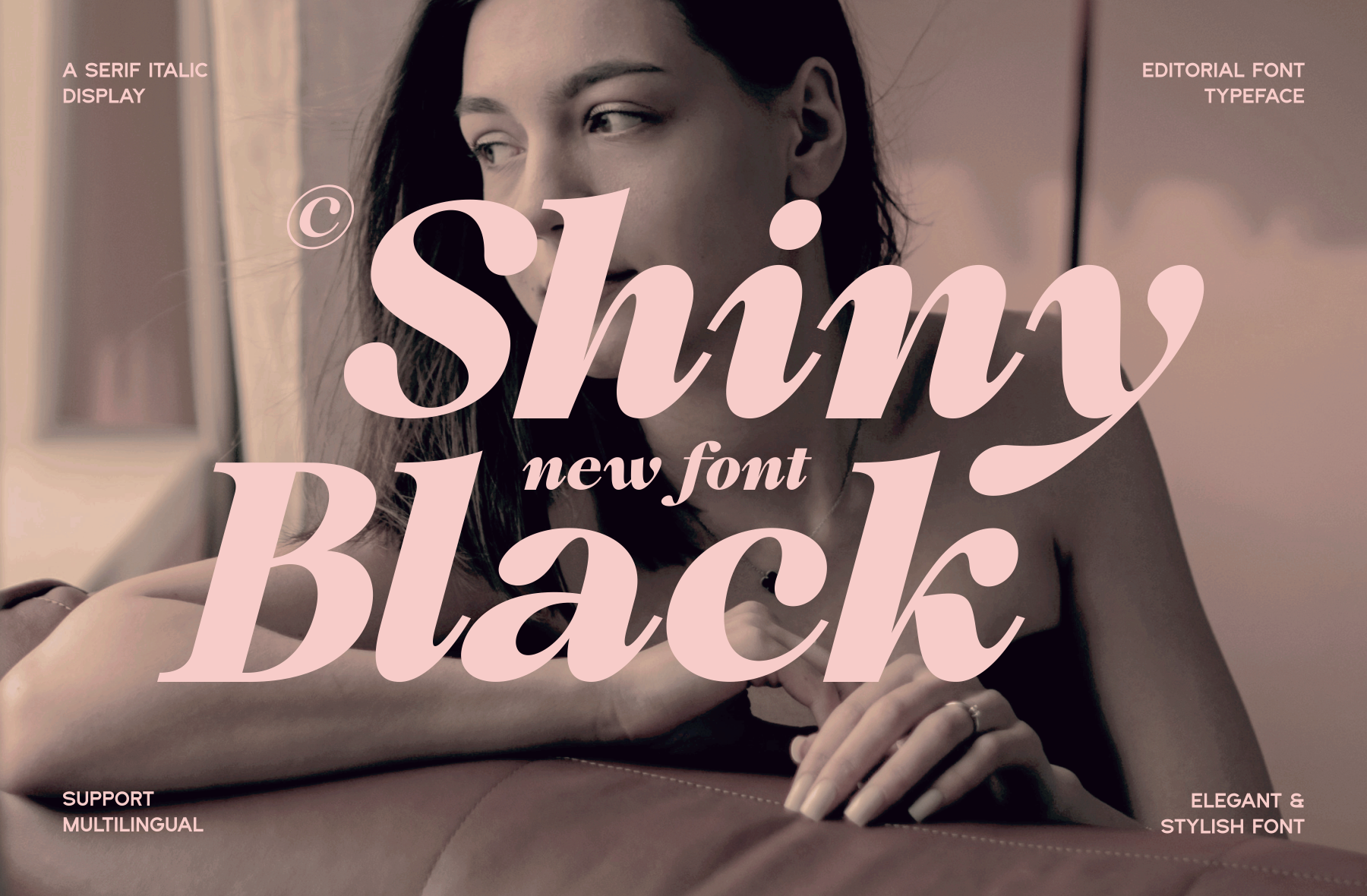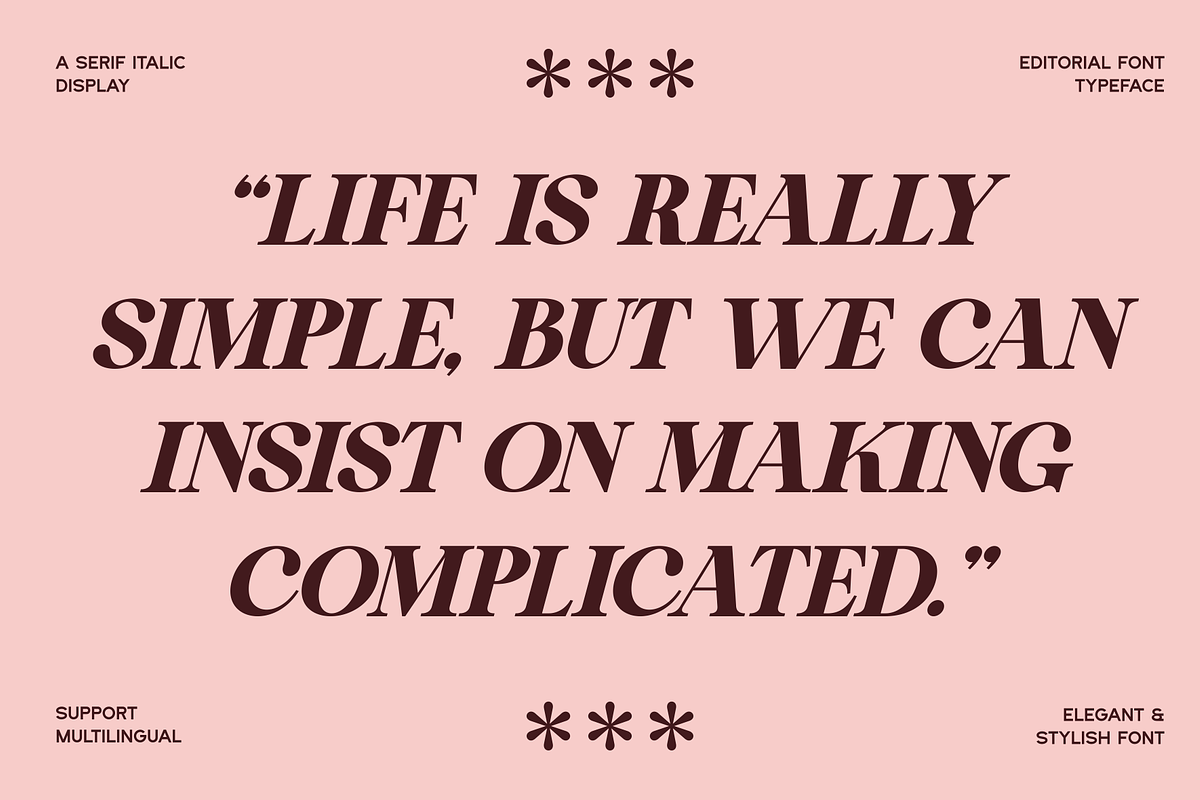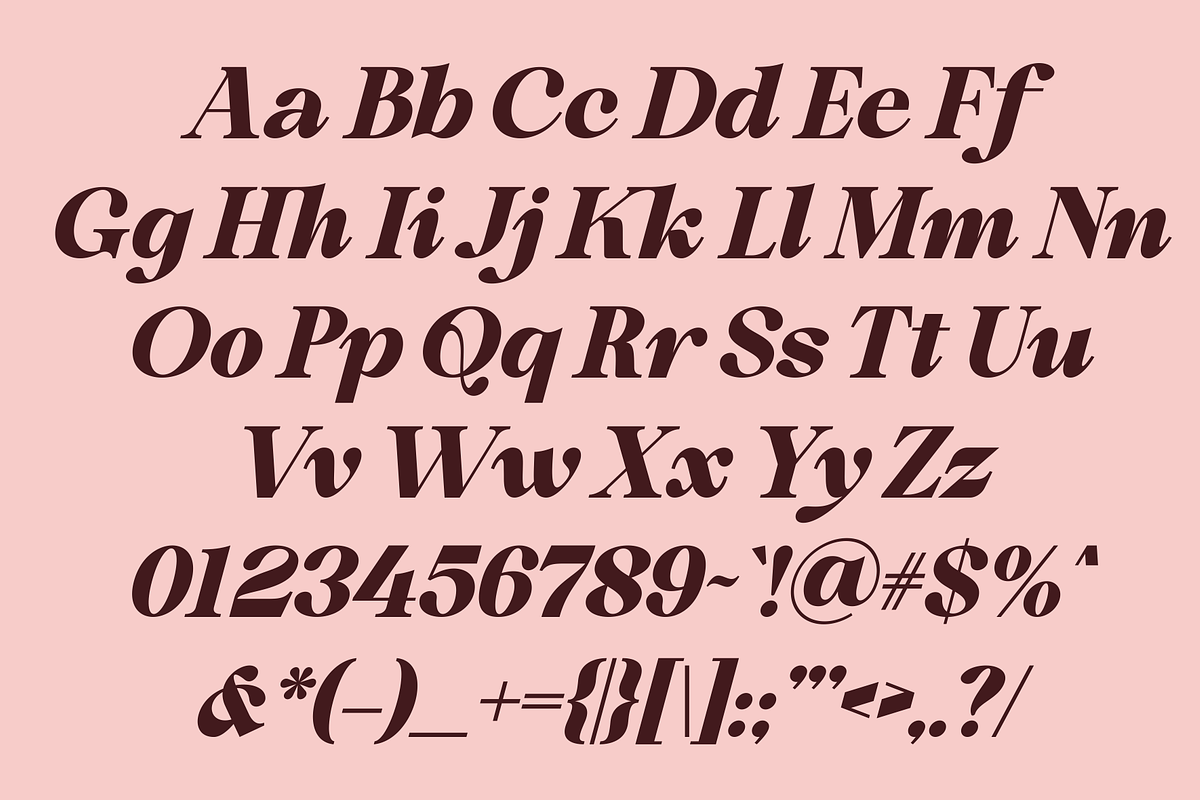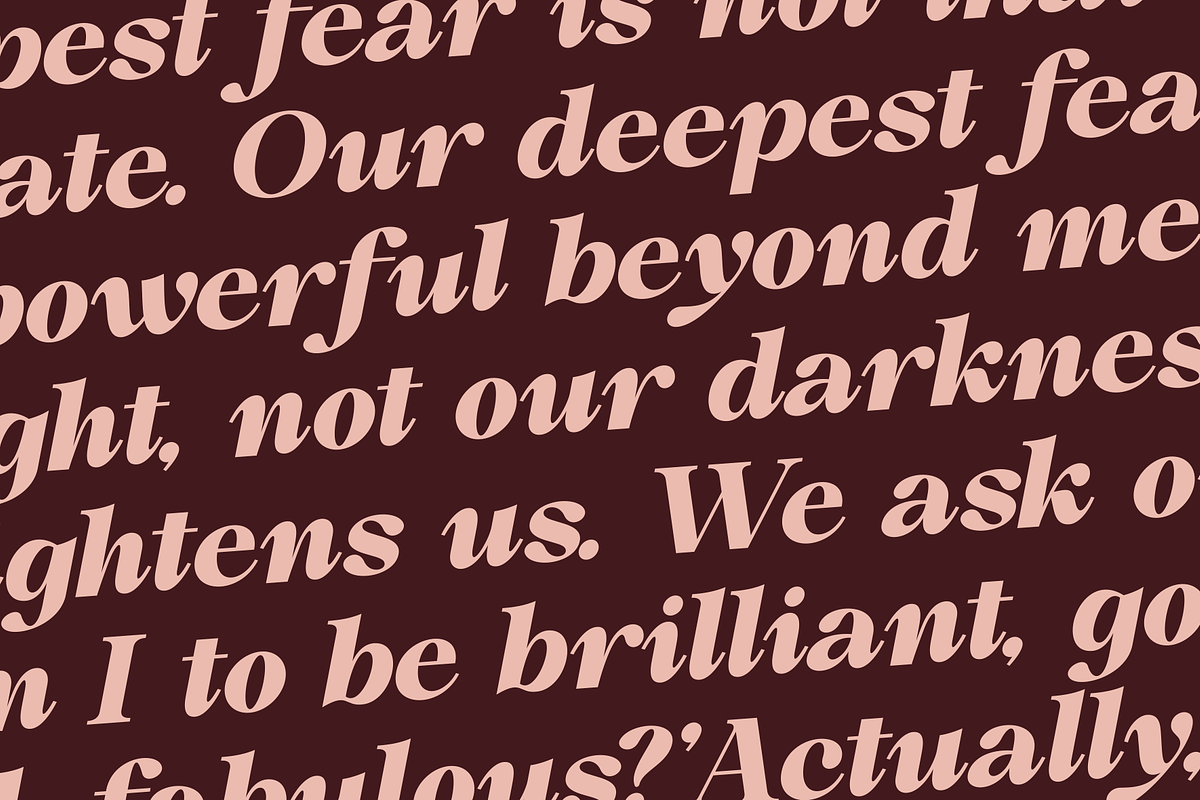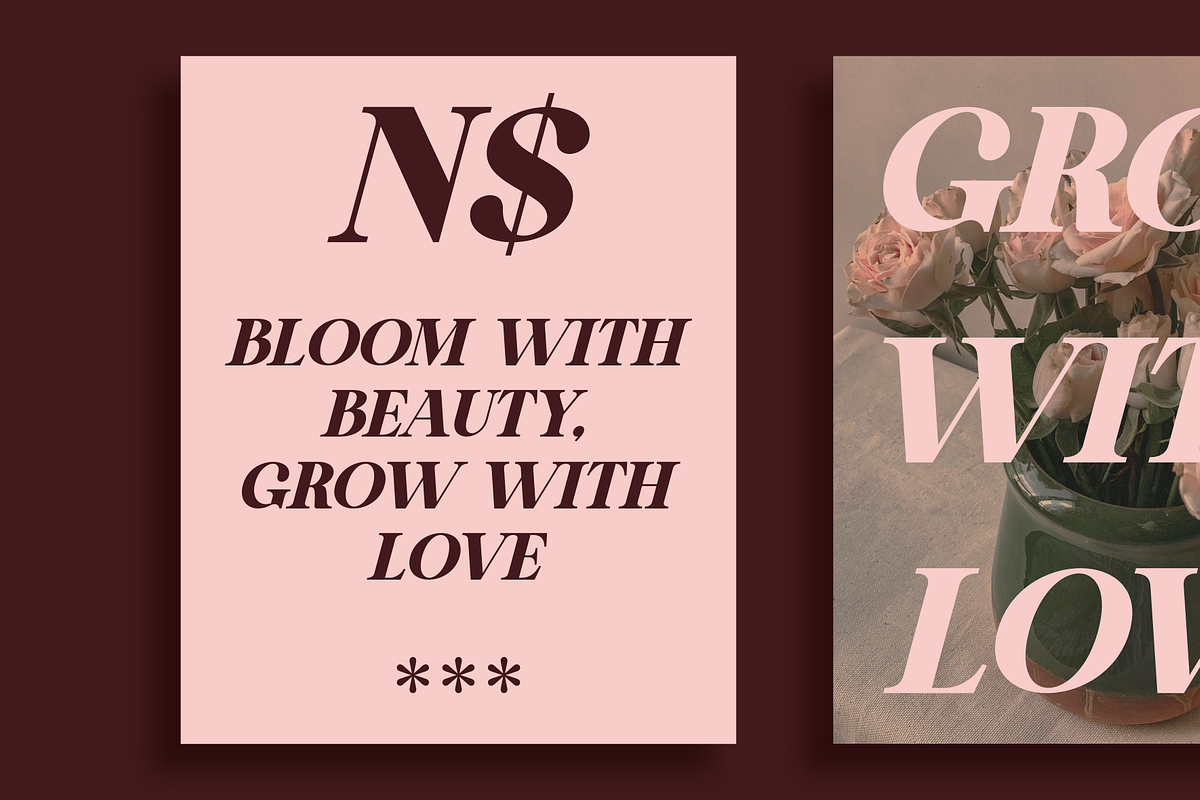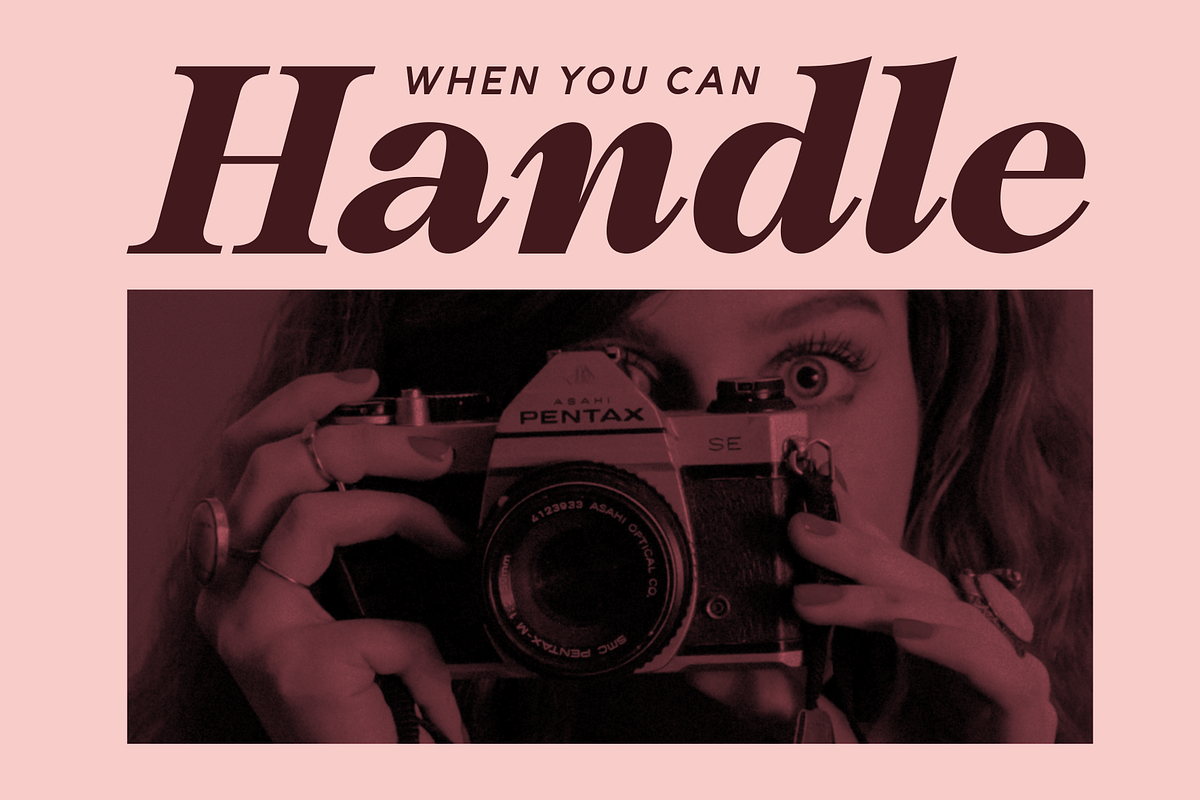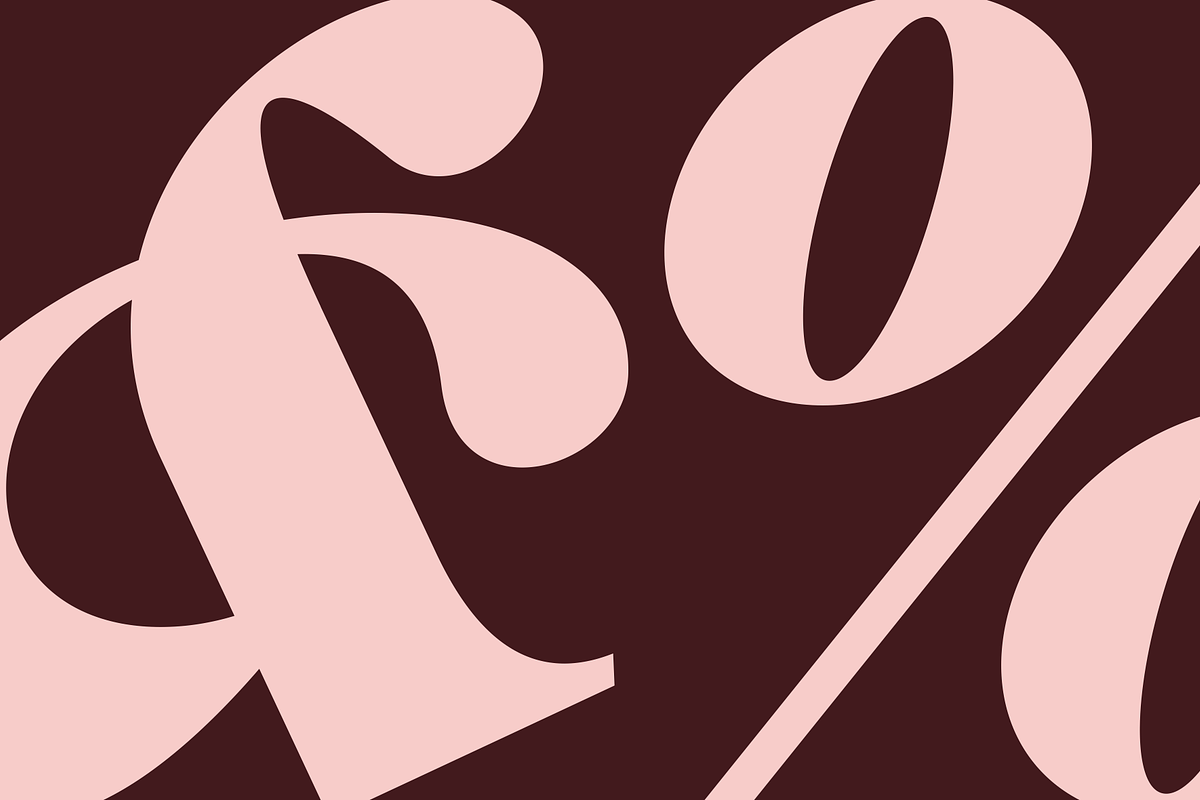
Shiny Black - Elegant Serif Typeface
Introducing our new product Shiny Black - Elegant Serif Typeface
This font is a type of letter that has special characteristics that create the impression of luxury, elegance and firmness. This font involves a series of design elements such as balanced thin and thick lines, gentle curves, and elegant and clean serifs. The sharp corners and fine details of each character create a highly aesthetic impression and exude an air of elegance.